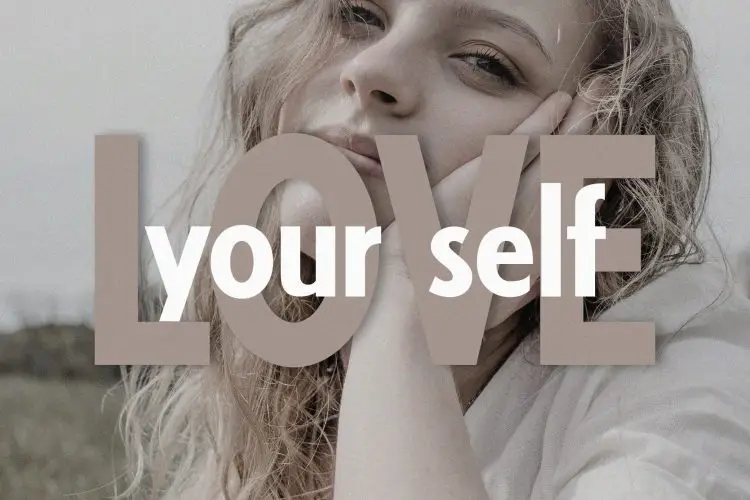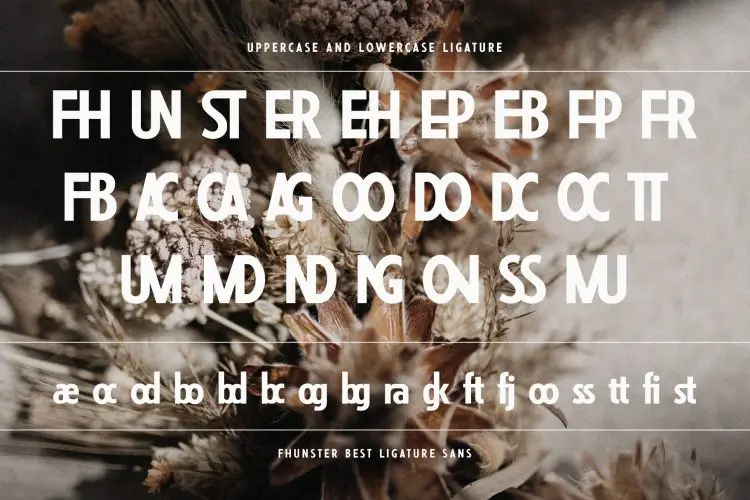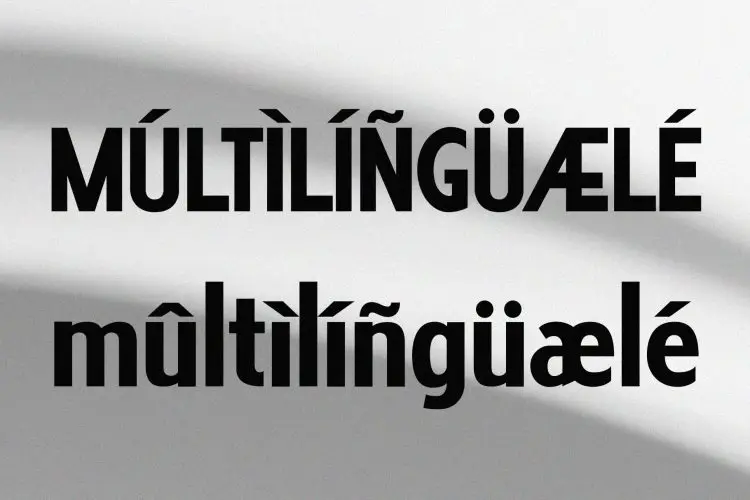
Fhunster Best Ligature Sans
Introducing Fhunster Best Ligature Sans, a refined and modern sans serif font that sets a new standard in design. With its classy design and added ligature features, Fhunster enhances its modern aesthetic, providing high-quality typography for a variety of creative applications. Whether you’re designing for websites, logos, magazines, or social media, Fhunster seamlessly integrates into your projects, bringing a sophisticated touch of elegance, style, and class.
For those seeking a font that combines chic modernity with versatility, Fhunster Best Ligature Sans is perfectly tailored to your creative needs.
Ideal for:
• Modern Designs
• Advertising Campaigns
• Visual Identity Projects
• Social Media Designs
• Personal Branding
• Web Designs
• Magazines
• Ready for Creative Expression
• Immaculately Crafted Letters
Fhunster is the best ligature sans font that combines modern design and elegance. Perfect for websites, logos, and branding, it elevates your creative projects with sophistication and style.